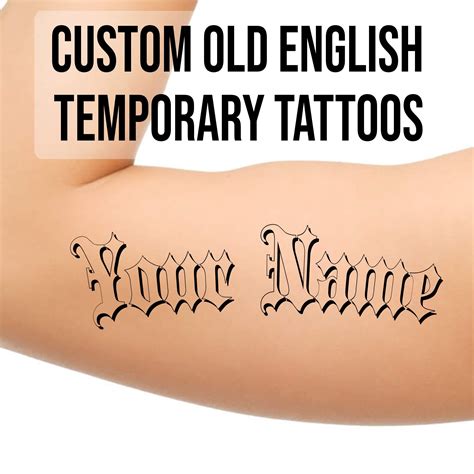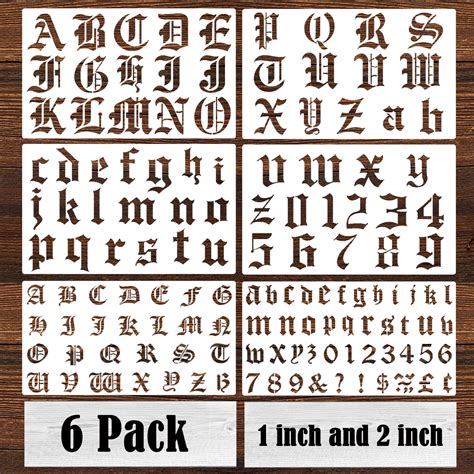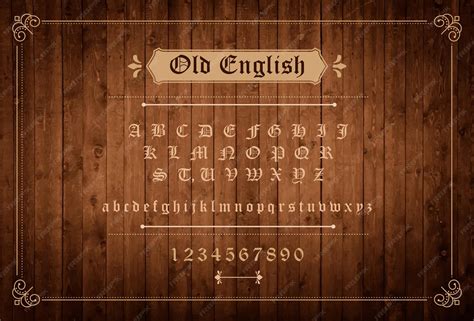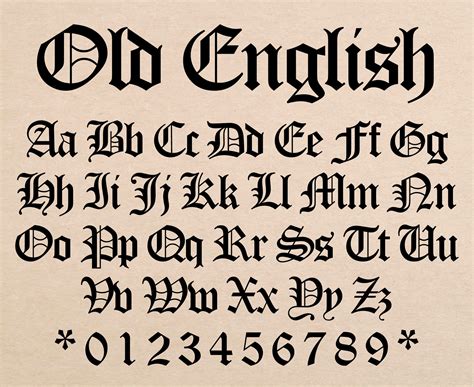
The world of typography is vast and diverse, with each font style carrying its unique history and aesthetic appeal. Among the many fonts that have stood the test of time, the Old English Cursive Font holds a special place. This font style, often associated with medieval manuscripts and historical documents, has a rich heritage that dates back to the early days of written communication. Its elegant and flowing script has captivated designers and enthusiasts alike, making it a popular choice for various applications, from wedding invitations to branding materials.
Understanding the Old English Cursive Font
The Old English Cursive Font is characterized by its intricate and flowing design, which mimics the handwriting styles of scribes from the medieval period. This font style is often used to evoke a sense of antiquity and elegance, making it a favorite among those who appreciate the beauty of historical scripts. The font's distinctive features include:
- Flowing Lines: The letters in the Old English Cursive Font are connected in a continuous flow, giving it a smooth and graceful appearance.
- Intricate Details: The font often includes ornate flourishes and decorative elements, adding to its visual appeal.
- Historical Authenticity: The design is inspired by actual medieval manuscripts, making it a historically accurate representation of old English handwriting.
Historical Context of the Old English Cursive Font
The Old English Cursive Font has its roots in the scribal traditions of medieval Europe. During this period, scribes were responsible for copying and preserving important texts, often using a cursive script that allowed for faster writing. This script evolved over time, with different regions developing their unique styles. The Old English Cursive Font is a modern interpretation of these historical scripts, capturing the essence of medieval handwriting while making it accessible for contemporary use.
One of the most notable examples of medieval cursive script is the Anglo-Saxon Charter, which dates back to the 7th and 8th centuries. These charters were legal documents that recorded land transactions and other important agreements. The script used in these charters is a precursor to the Old English Cursive Font, showcasing the flowing and connected letters that characterize this style.
Applications of the Old English Cursive Font
The Old English Cursive Font is incredibly versatile and can be used in a variety of contexts. Its timeless appeal makes it a popular choice for both personal and professional projects. Some of the most common applications include:
- Wedding Invitations: The elegant and romantic feel of the Old English Cursive Font makes it perfect for wedding invitations, announcements, and other special occasion stationery.
- Branding Materials: Businesses looking to convey a sense of tradition and sophistication often use the Old English Cursive Font in their logos, letterheads, and marketing materials.
- Historical Documents: The font is ideal for recreating the look and feel of historical documents, making it a valuable tool for historians, archivists, and educators.
- Art and Design: Artists and designers often incorporate the Old English Cursive Font into their work to add a touch of elegance and historical authenticity.
Designing with the Old English Cursive Font
When working with the Old English Cursive Font, there are several factors to consider to ensure that your design is both visually appealing and legible. Here are some tips for effective use:
- Pairing with Other Fonts: The Old English Cursive Font pairs well with simpler, more modern fonts. This contrast can help highlight the unique features of the cursive script while maintaining readability.
- Color and Contrast: Choose colors that complement the font's elegant design. Darker shades on a light background can enhance the font's readability, while lighter shades on a dark background can create a more dramatic effect.
- Size and Spacing: Ensure that the font size is large enough to be easily read, especially in printed materials. Adjust the line spacing to avoid clutter and maintain a clean, uncluttered look.
- Consistency: Use the Old English Cursive Font consistently throughout your design to create a cohesive and polished appearance.
Here is a table that summarizes the key design considerations for using the Old English Cursive Font:
| Design Consideration | Tips |
|---|---|
| Font Pairing | Pair with simpler, modern fonts for contrast and readability. |
| Color and Contrast | Choose complementary colors and ensure good contrast for readability. |
| Size and Spacing | Use appropriate font size and line spacing to maintain clarity. |
| Consistency | Maintain consistent use of the font throughout the design. |
Examples of the Old English Cursive Font in Use